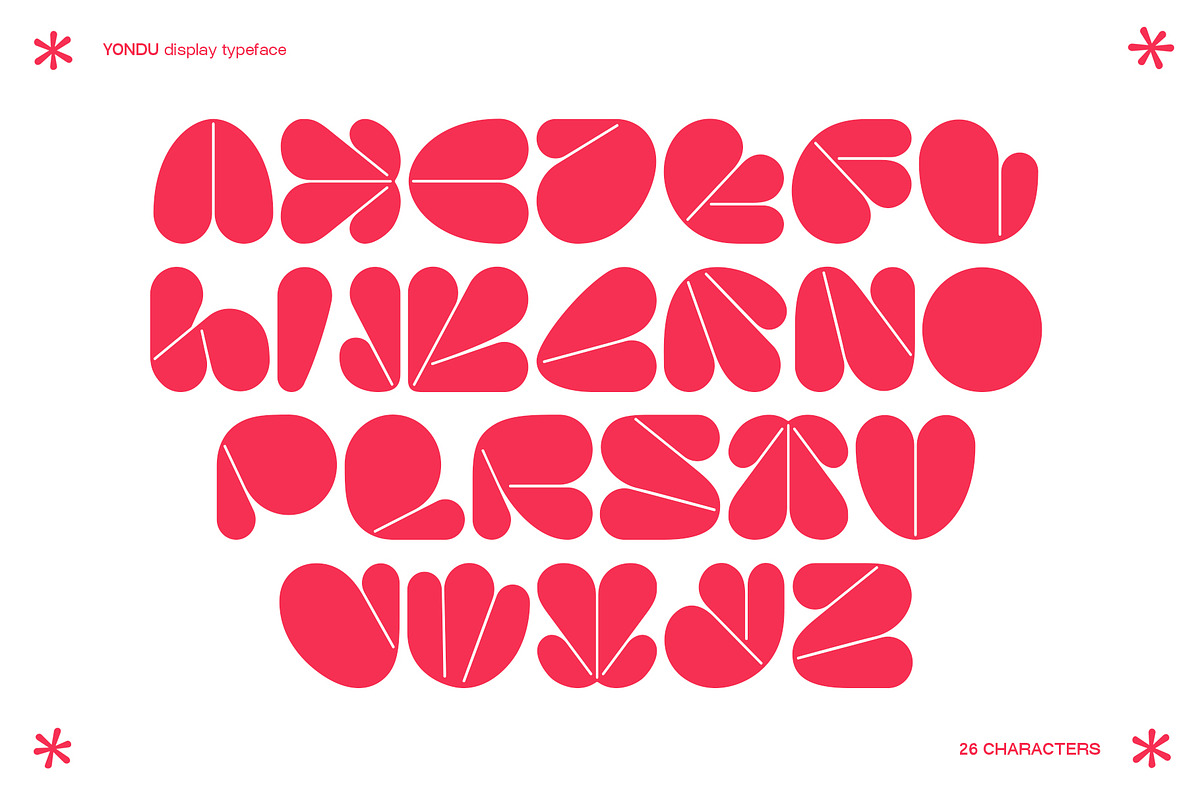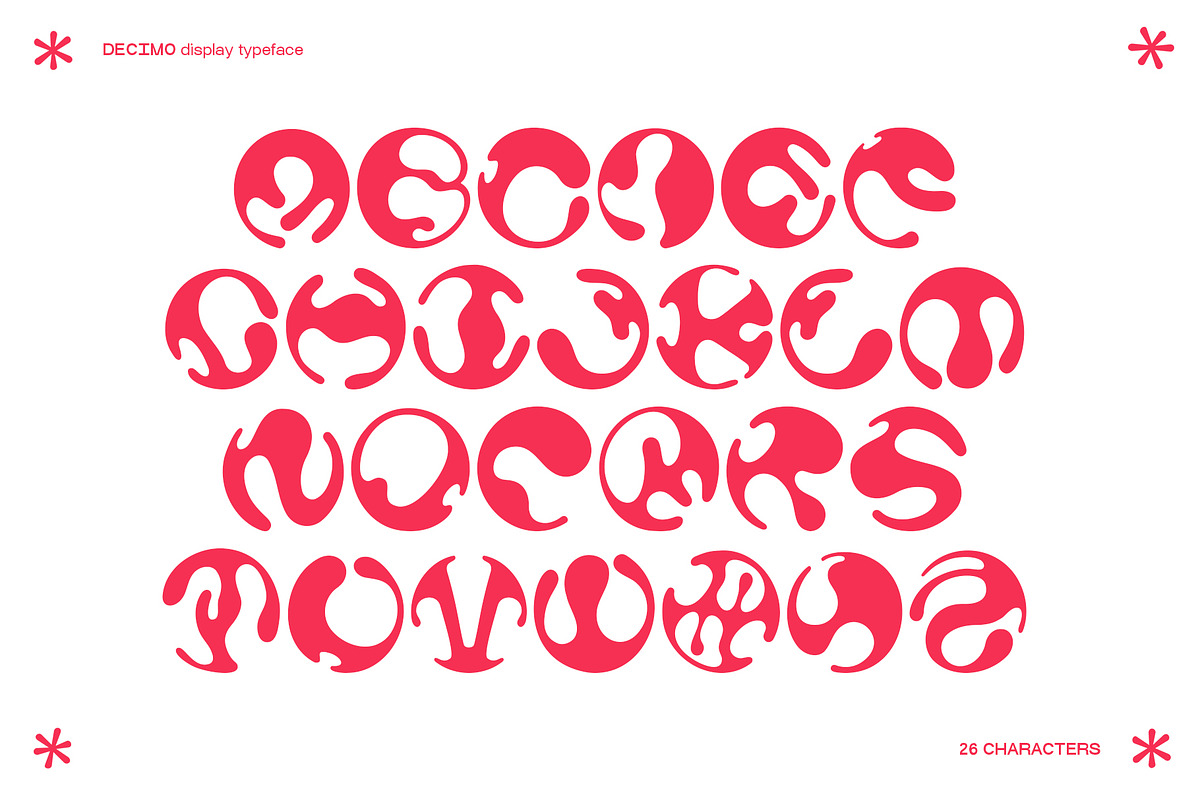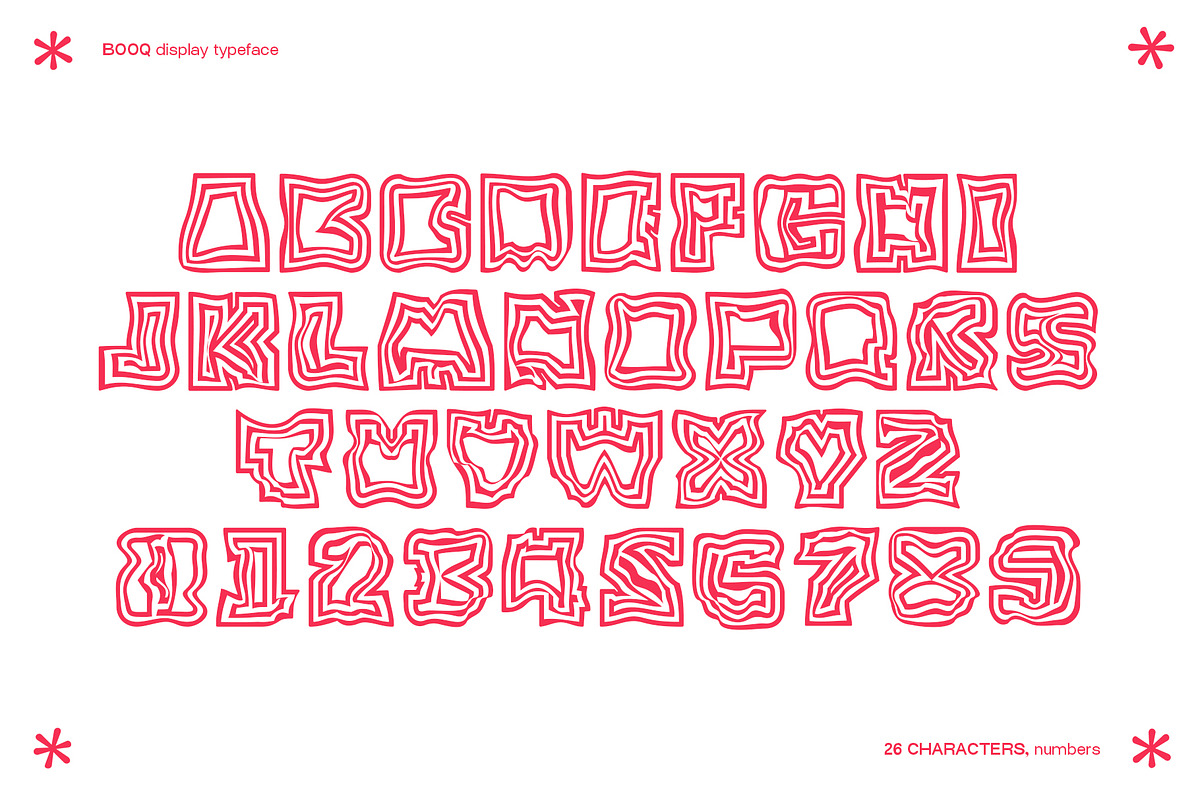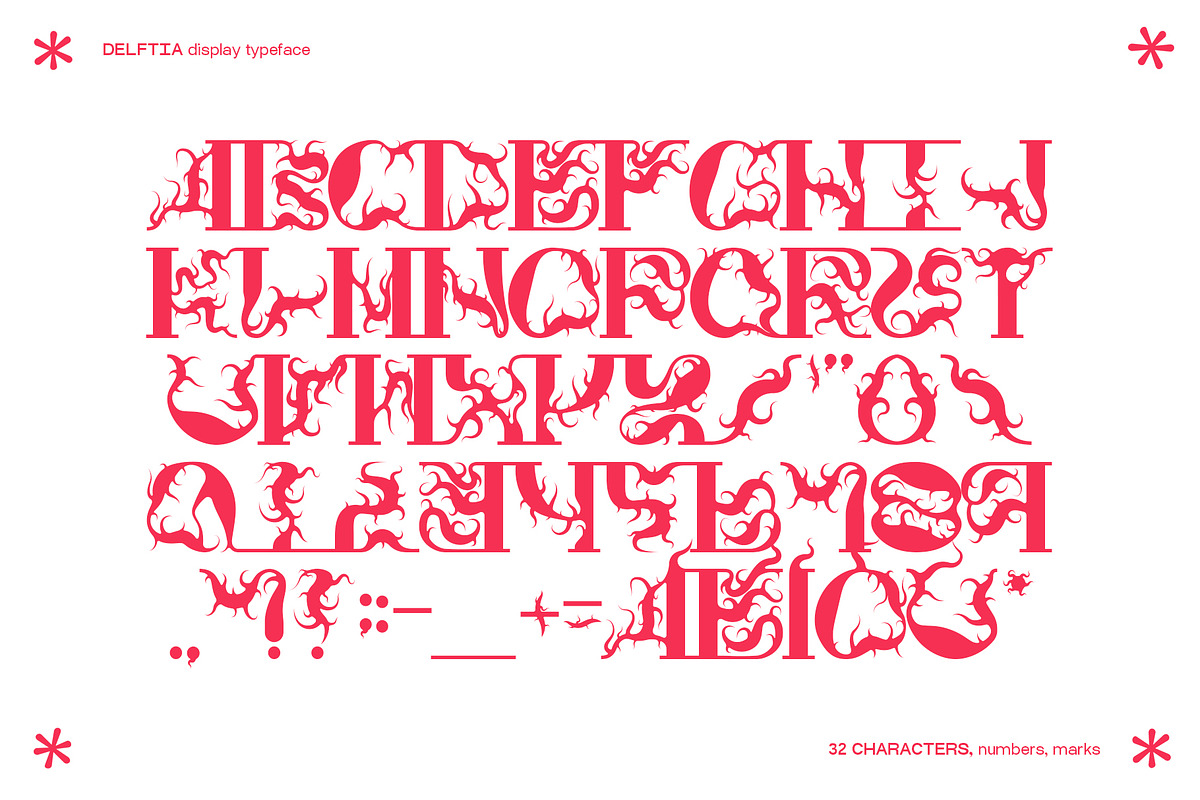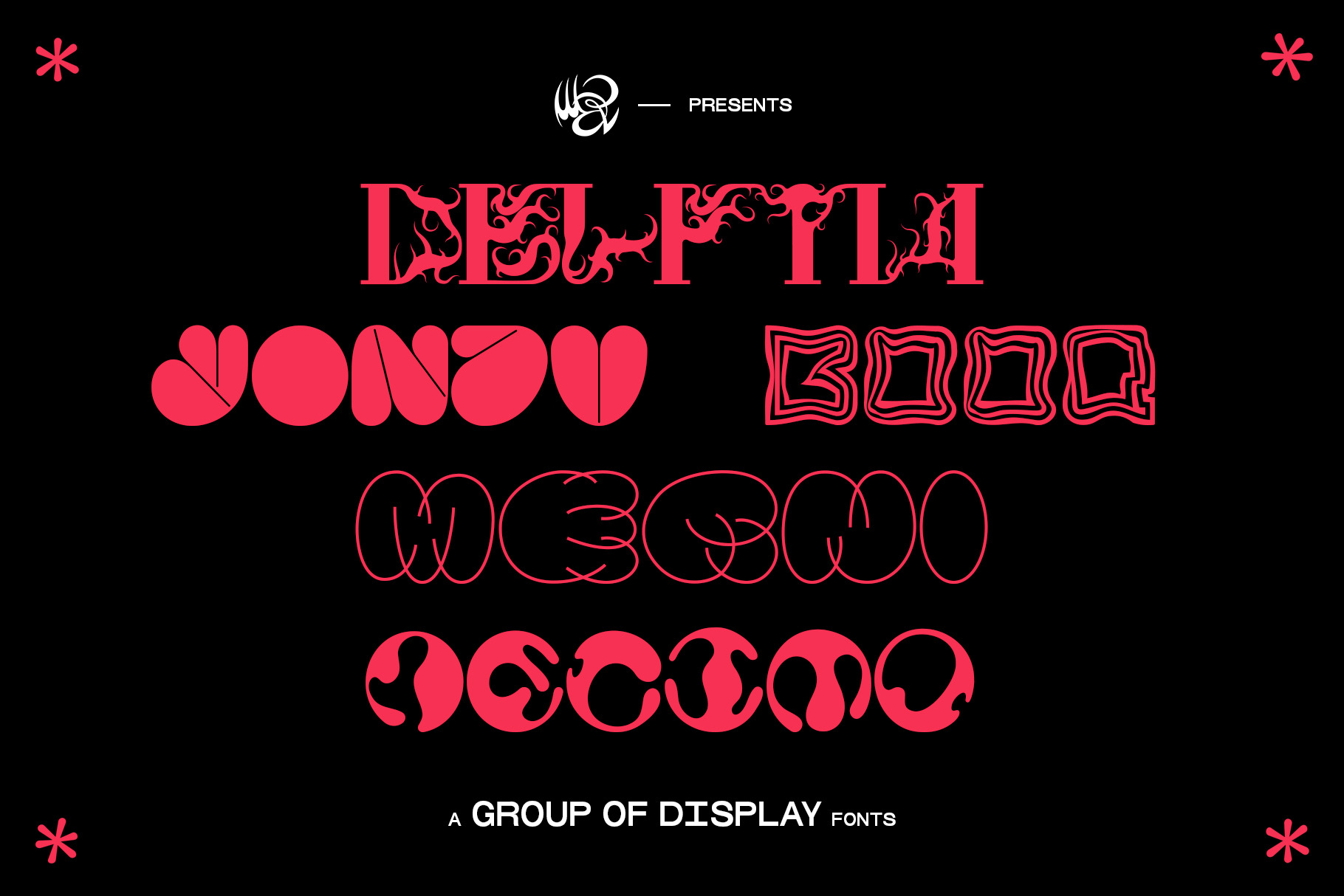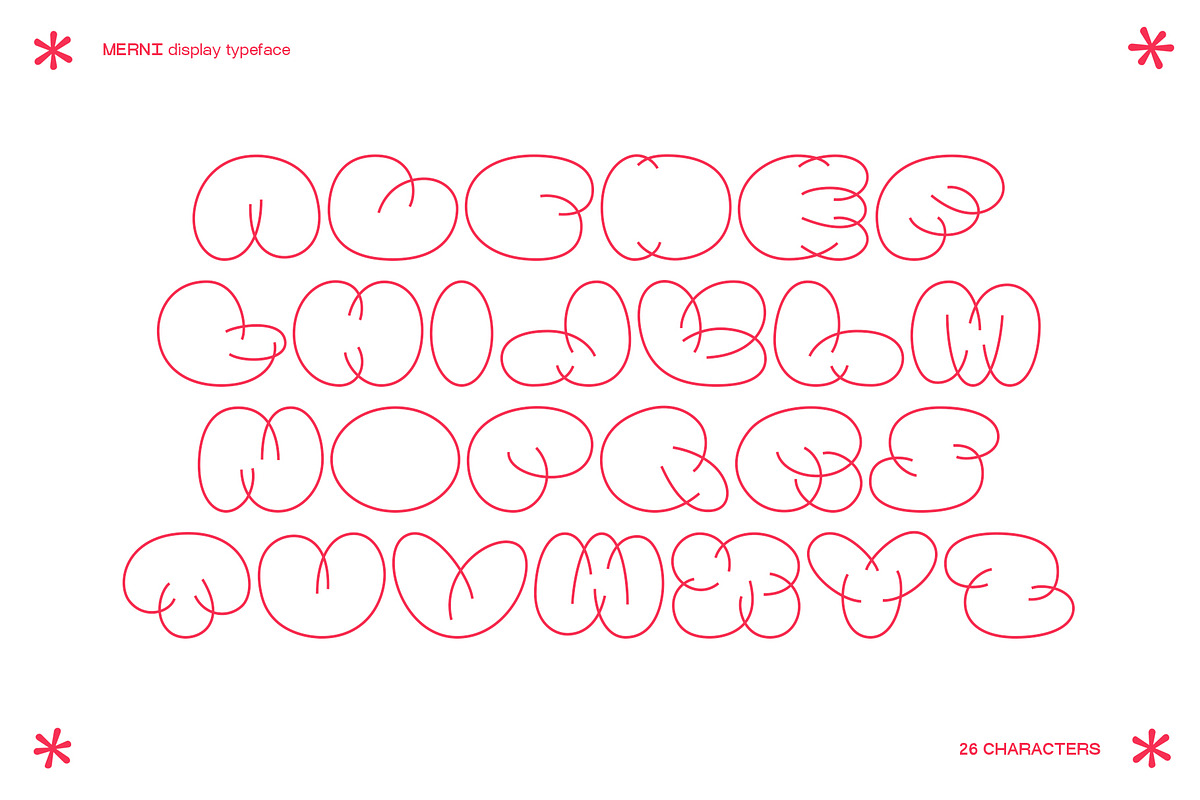
DISPLAY TYPEFACES BUNDLE 2
Meet my second display typefaces bundle, 5 unique fonts, with unique styles and characteristics DELFTIA is a cool typeface designed to look like corrupted letters, half serif and half natural, virus lines, heavily inspired by 2020 pandemic and the corona virus, full of 32 characters, with accents, marks, and numbers. YONDU is a fun font, round and bold in its feel and it's perfect to create big headlines, designed to be familiar, to be enjoyful and to bring out the best of your modern designs, full of all 26 characters BOOQ is a really strange font, difficult to use but also very specific, works amazingly with short texts and in both big or small caps. Inspired by the ocean waves and each letter has been designed with 3 lines to give more weight to every wave. full of all 26 characters and numbers. MERNI is a font made with thin lines, but the way it's designed is to look and feel like a really bold typeface, every line doesn't close to an end, but lives in harmony with the other lines to create all the letter in a perfect equilibrium. Full of all 26 characters. DECIMO is my latest font, each letter has been designed inside a circle, it's a round liquid font and it's inspired by the bottom of coffee cups, and also by the alien signs from ARRIVAL, it's a really strange font but perfect to create merch, album covers or logos, patterns and much more. Full of all 26 characters.